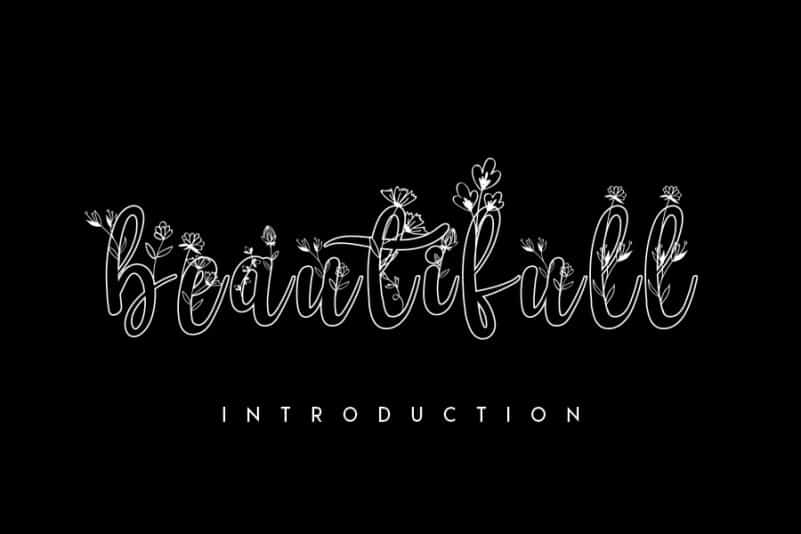
Flower Fresh Display Font
Flower Fresh Display Font is a magical display font carefully created with a touch of elegance. It features flower-themed characters that will take your designs to the next level! It’s perfect for stationery, wedding invitations, photography, packaging and much more!
The latest style letters are perfect for wall displays, wedding invitations, social media post logos, advertisements, product packaging, product designs, labels, photography, watermarks, invitations, stationery, and any project that requires taste handwriting.